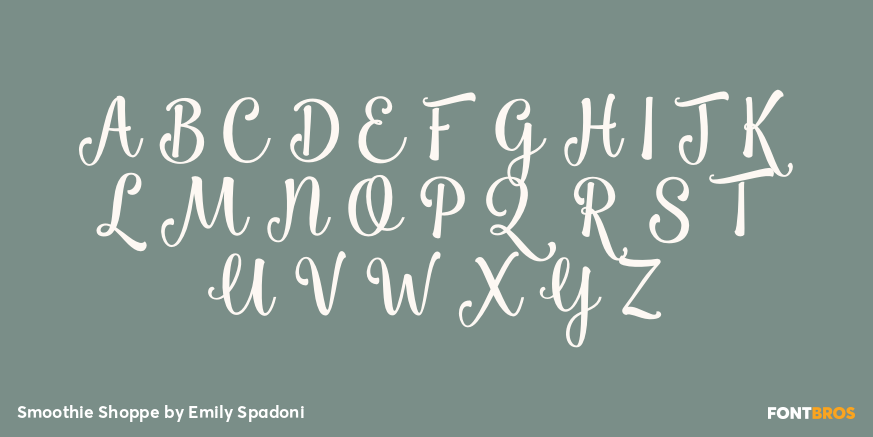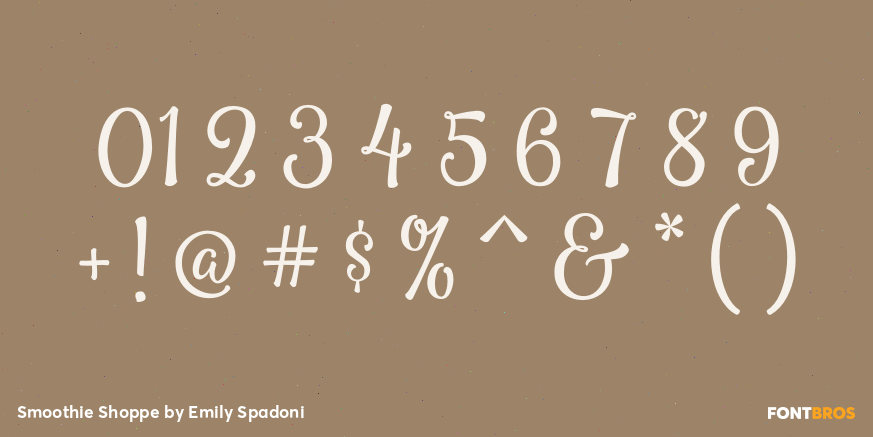
Smoothie Shoppe
Font Family by Emily Spadoni
Smoothie Shoppe is a bold, yet sweet, modern version of our old favorite retro display fonts. Fun, yet clean brush-style script letters. Many additional character combinations with ligatures and swashes to fancy any project.
An awesome bonus of over 80 ornaments! Frames, banners, tons of chalkboard style ornaments, and doodles to decorate displays, signage, logos, anything your little heart desires. I've even included a PDF ornament map to clearly see what's available as your working.